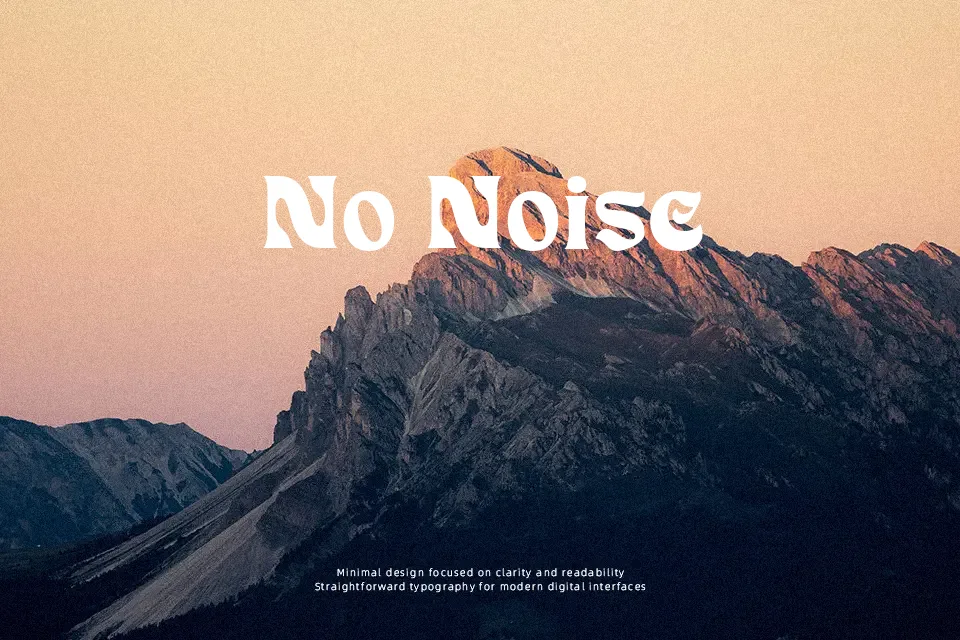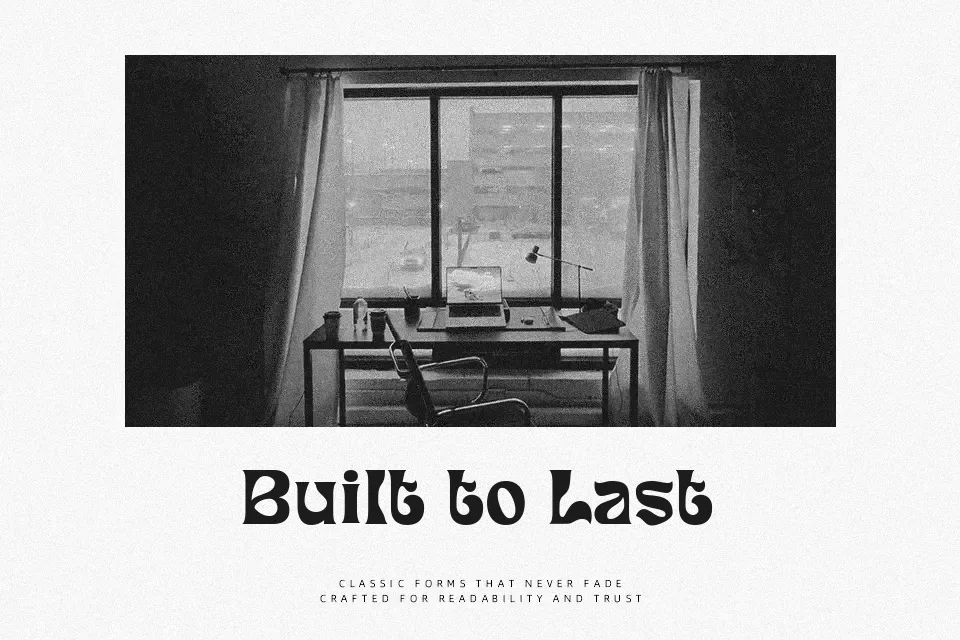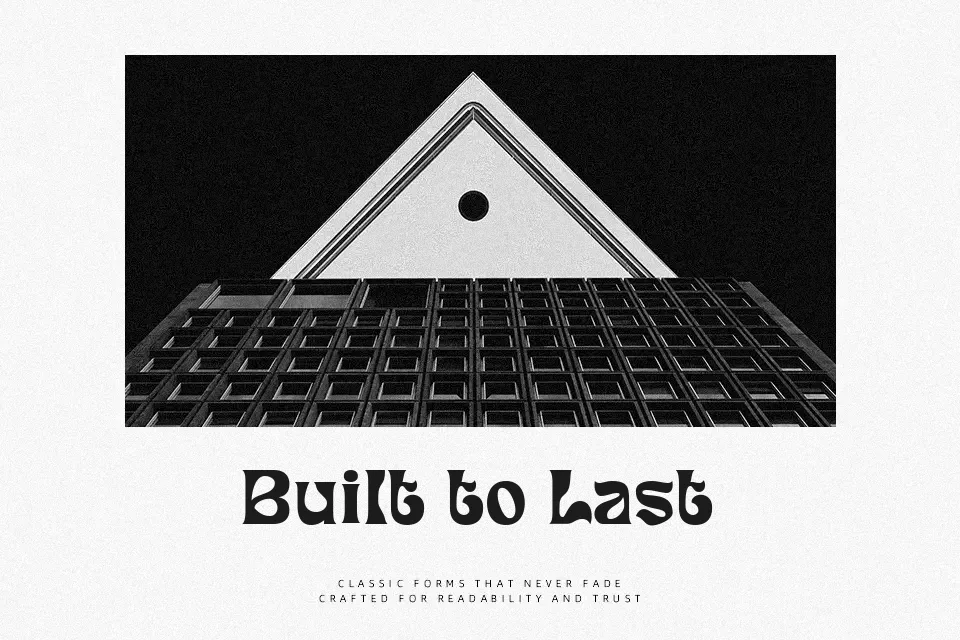
Suncos Font
Suncos Font delivers a bold retro aesthetic marked by expressive flared serifs, generous curves, and high stroke contrast. The typeface maintains consistent proportions across uppercase and lowercase sets, creating an energetic visual rhythm in large layouts. Tight letter spacing enhances cohesion in display headers, though it demands ample breathing room in dense compositions. The fluid letterforms remain easy to distinguish in short display titles, making the design ideal for festival banners, apparel graphics, and packaging labels. However, the decorative flourishes and heavy weights reduce legibility in extended body text, limiting its effectiveness for small captions or continuous editorial paragraphs.
Best For: music festival posters, vintage product packaging, apparel graphics, album cover titles
Not Ideal For: long body text, corporate reports, small interface captions, legal documents
Perfect for branding, headline, and music, with a bold and decorative style.